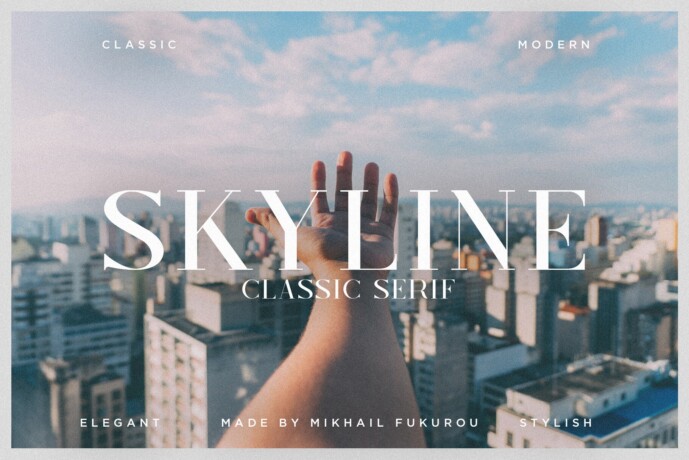
Skyline Font
Designer: schrifttype
Skyline Font – a serif typeface that embodies a timeless blend of traditional elegance and contemporary finesse. Boasting an all-caps design, Skyline is marked by its balanced aesthetics and immaculately smooth curves and lines. Carefully curated, this font offers two distinct styles: Classic Regular and Stylish Italic.
With Skyline, power and grace align, making it the perfect choice for those seeking to elevate their fashion endeavors, command attention in magazine headers, or create impactful and memorable logos. Evolutionary in its versatility, Skyline is the typeface that has been meticulously designed to amplify your creative visions.